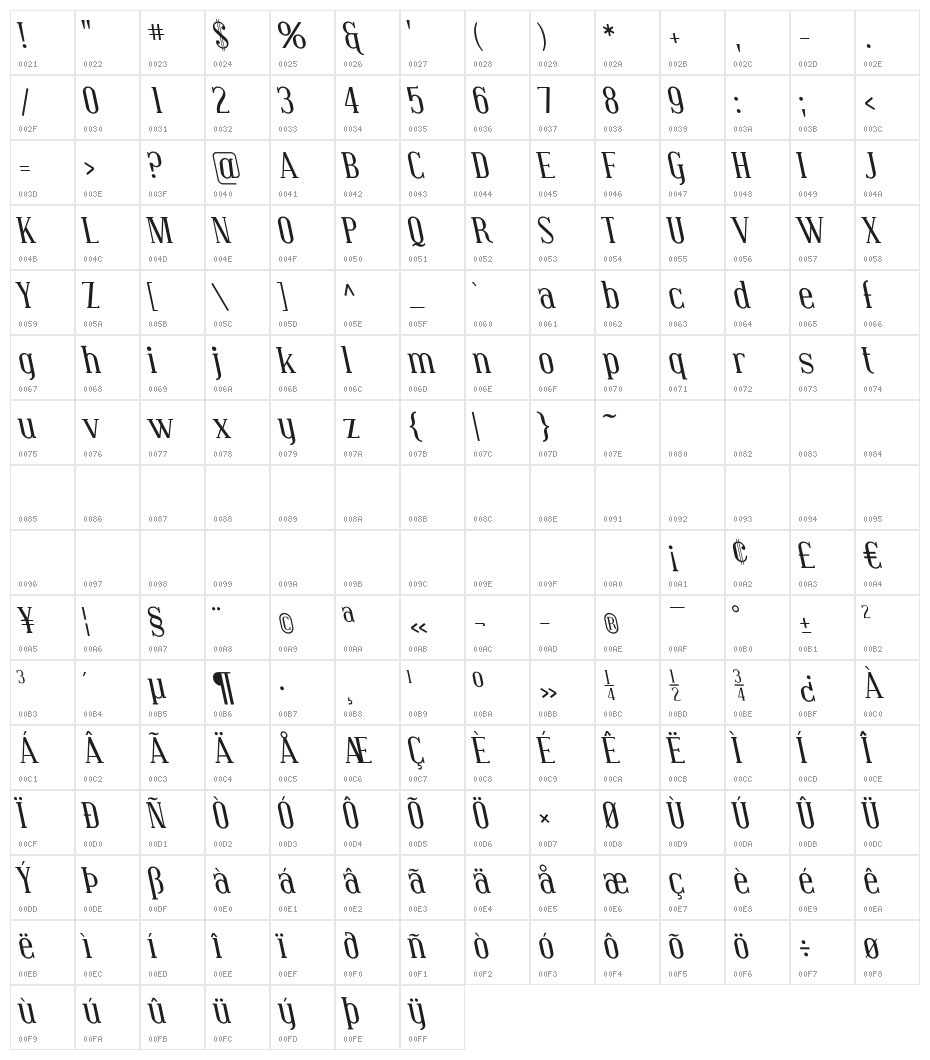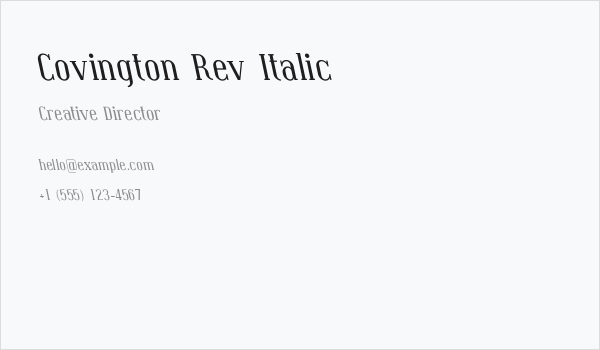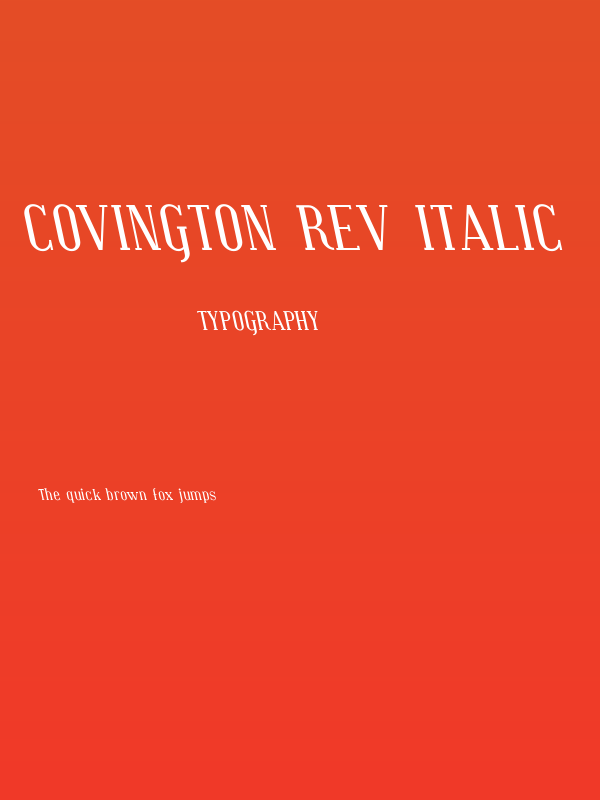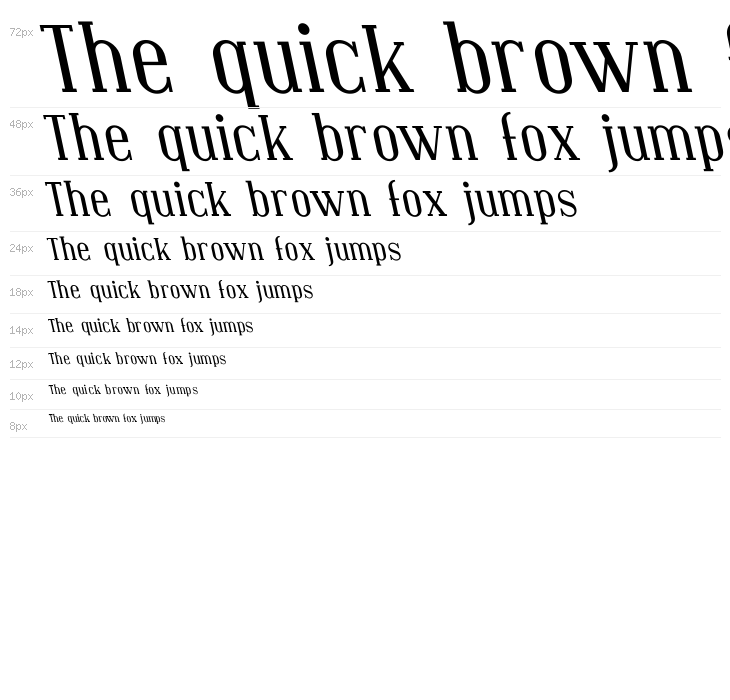
Covington Rev Italic Font
Covington Rev Italic Description
This font exhibits a classic serif style with a modern twist, characterized by its elegant and slightly condensed letterforms. The italic slant adds a dynamic and sophisticated touch, making it suitable for both formal and creative applications. The uppercase letters are tall and commanding, while the lowercase letters maintain a smooth and flowing appearance. The numerals are clear and well-proportioned, ensuring readability. Special characters are thoughtfully designed, maintaining the overall aesthetic of the font. The stroke contrast is medium, providing a balance between boldness and subtlety.
| Proposed Projects | Ideal for editorial design, book covers, branding, and sophisticated advertising campaigns. |